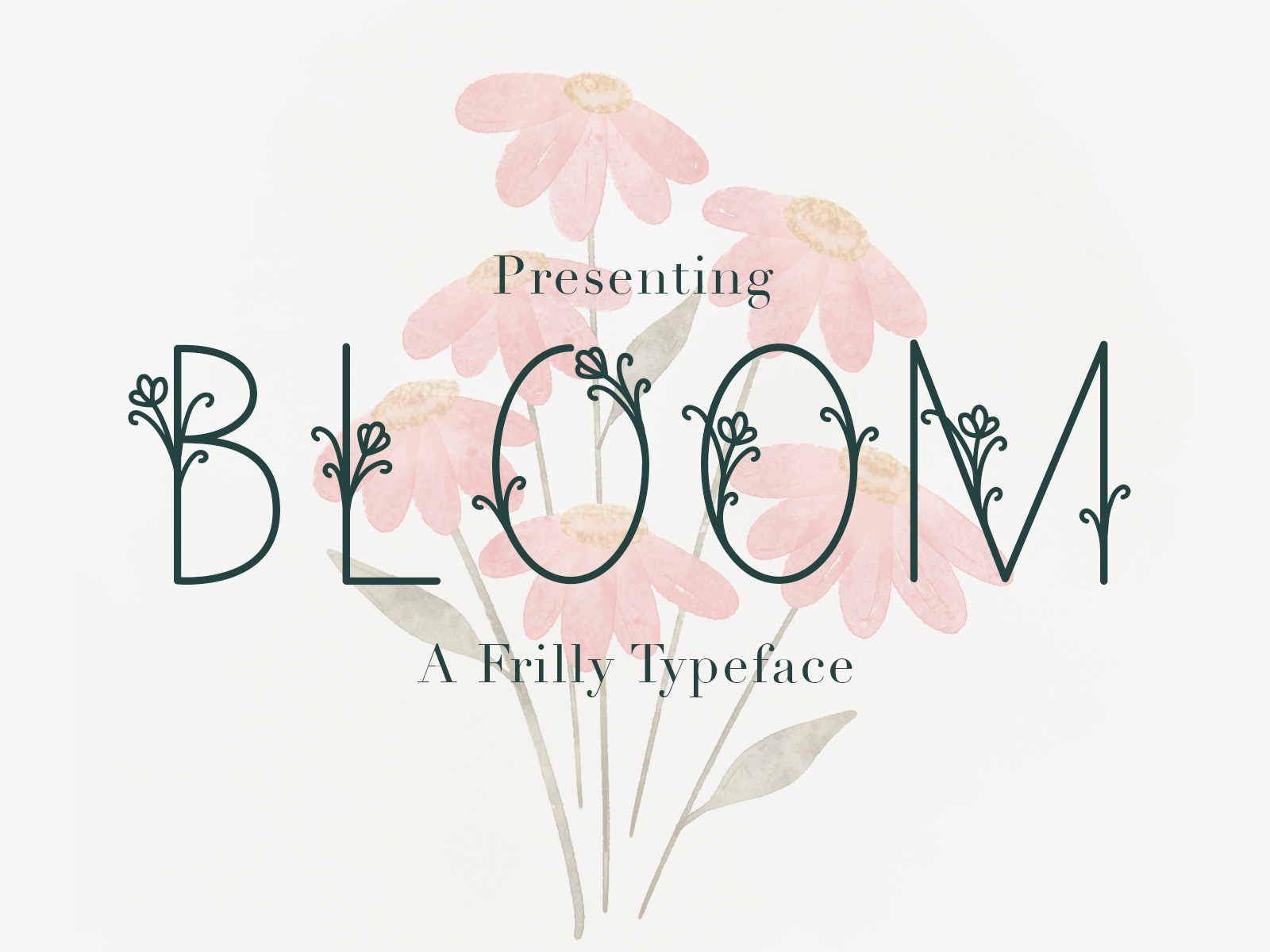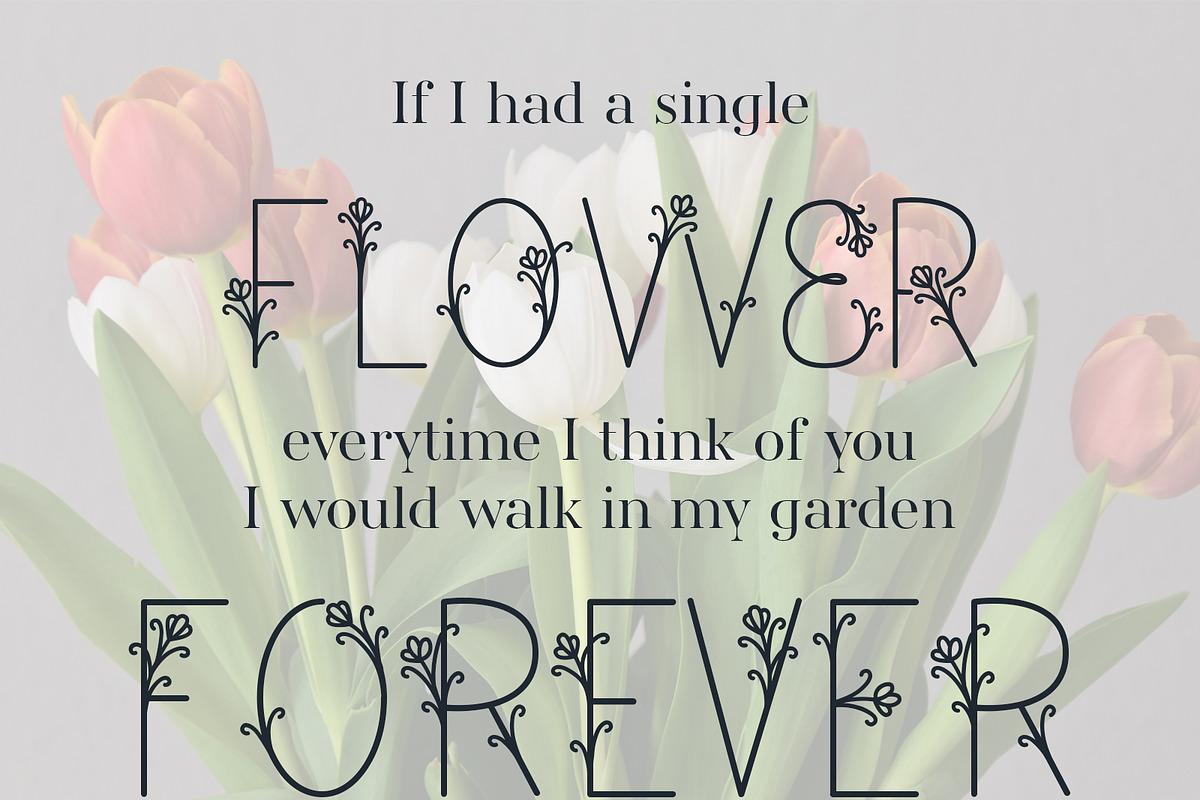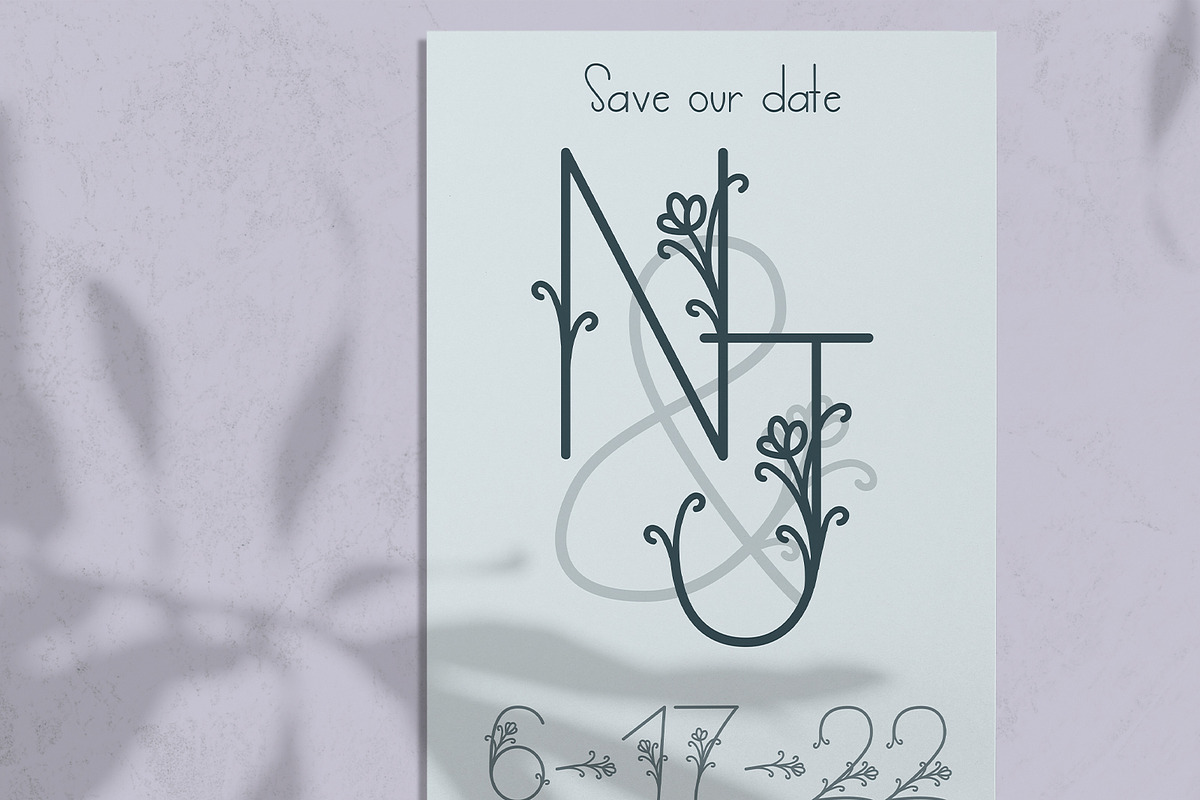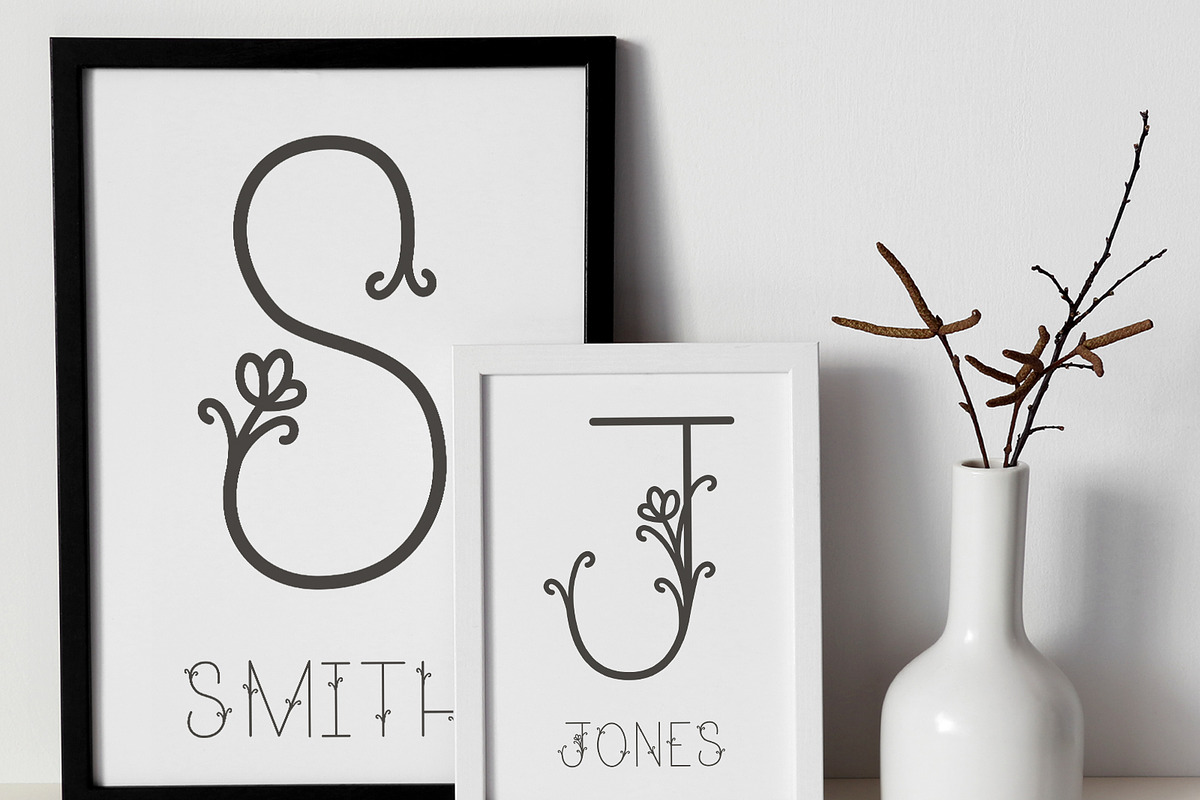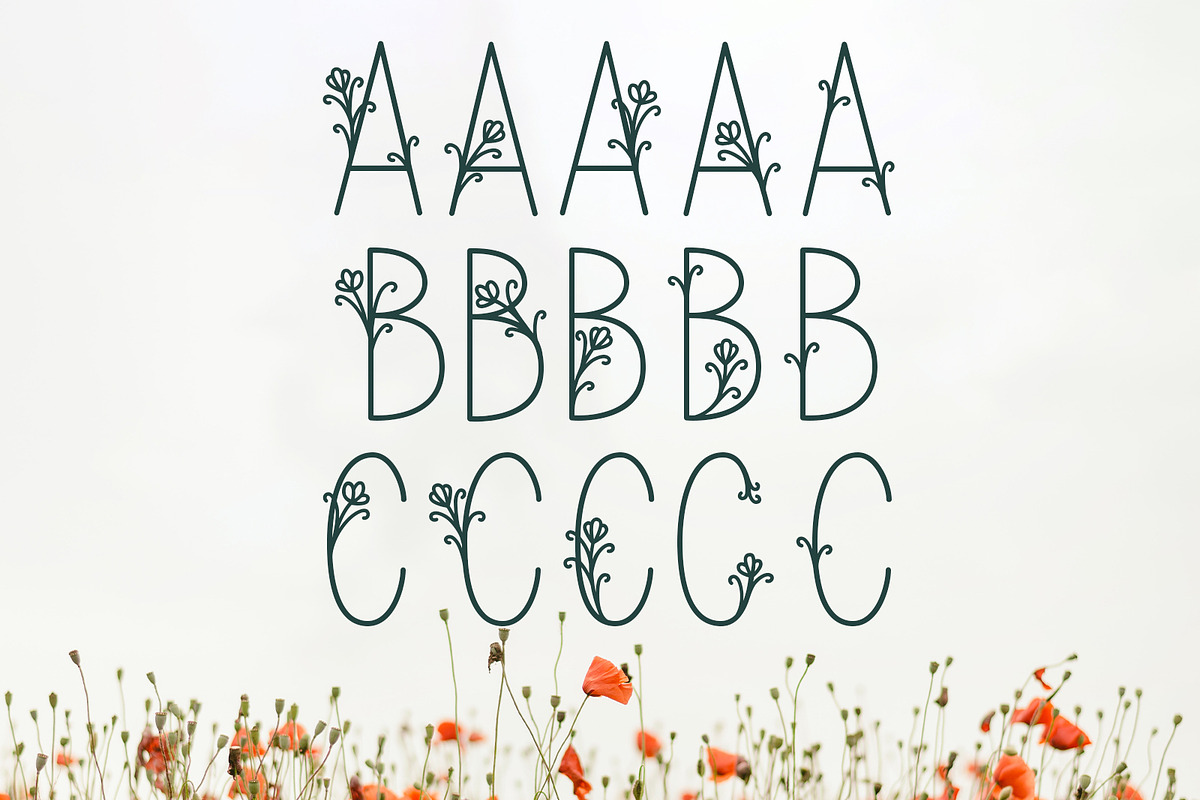
Bloom | A Delicate Decorative Font
Bloom is a delicate and frail decorative font, featuring lovely ornaments on each character. It will add a luxury spark to any design project that you wish to create! This font is PUA encoded which means you can access all of the amazing glyphs and ligatures with ease!
This typeface is an all caps font with FIVE alterations for every letter. Type in caps to use the beautiful floral letters, and lowercase to access the glyphs with accenting swirls instead! Use your Glyphs panel in the Adobe Suite to access the additional alterations of every letter.
With limited punctuation, this font is perfect for boutique logos, stationery designs, and showcasing your favorite quotes.